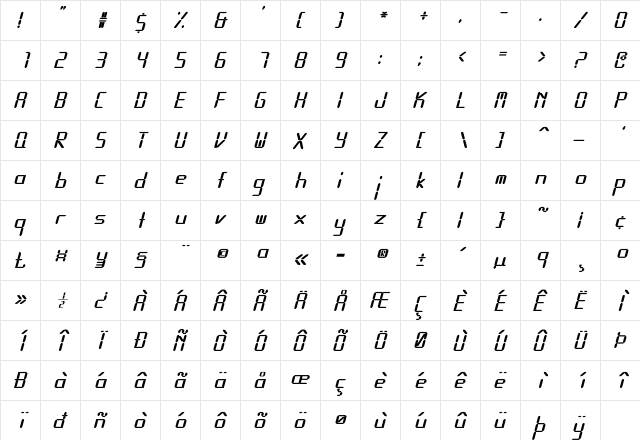
Calculator Bold Italic Font Preview
Design Context for Calculator Typeface
Calculator takes a measured approach to typography — its balanced proportions and neutral character make it a reliable workhorse for both digital and print work. Its italic angle brings a sense of urgency and motion to the letterforms. Its bold stroke weight gives it real presence on the page.
Pro Tip: Try Calculator for annotation and caption copy alongside an upright companion — the contrast in angle creates a dynamic but ordered typographic system.